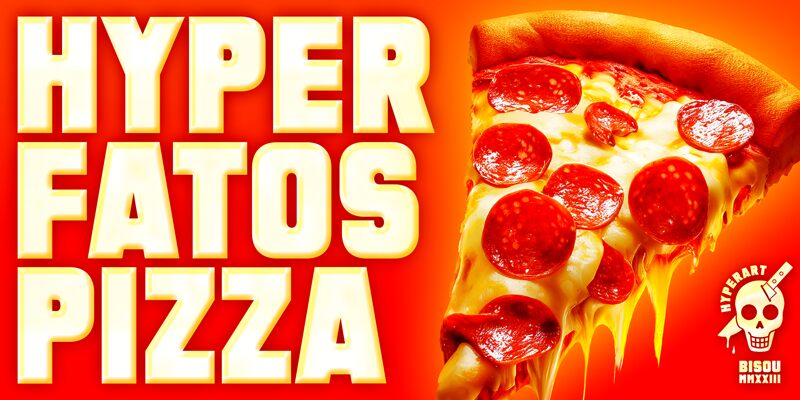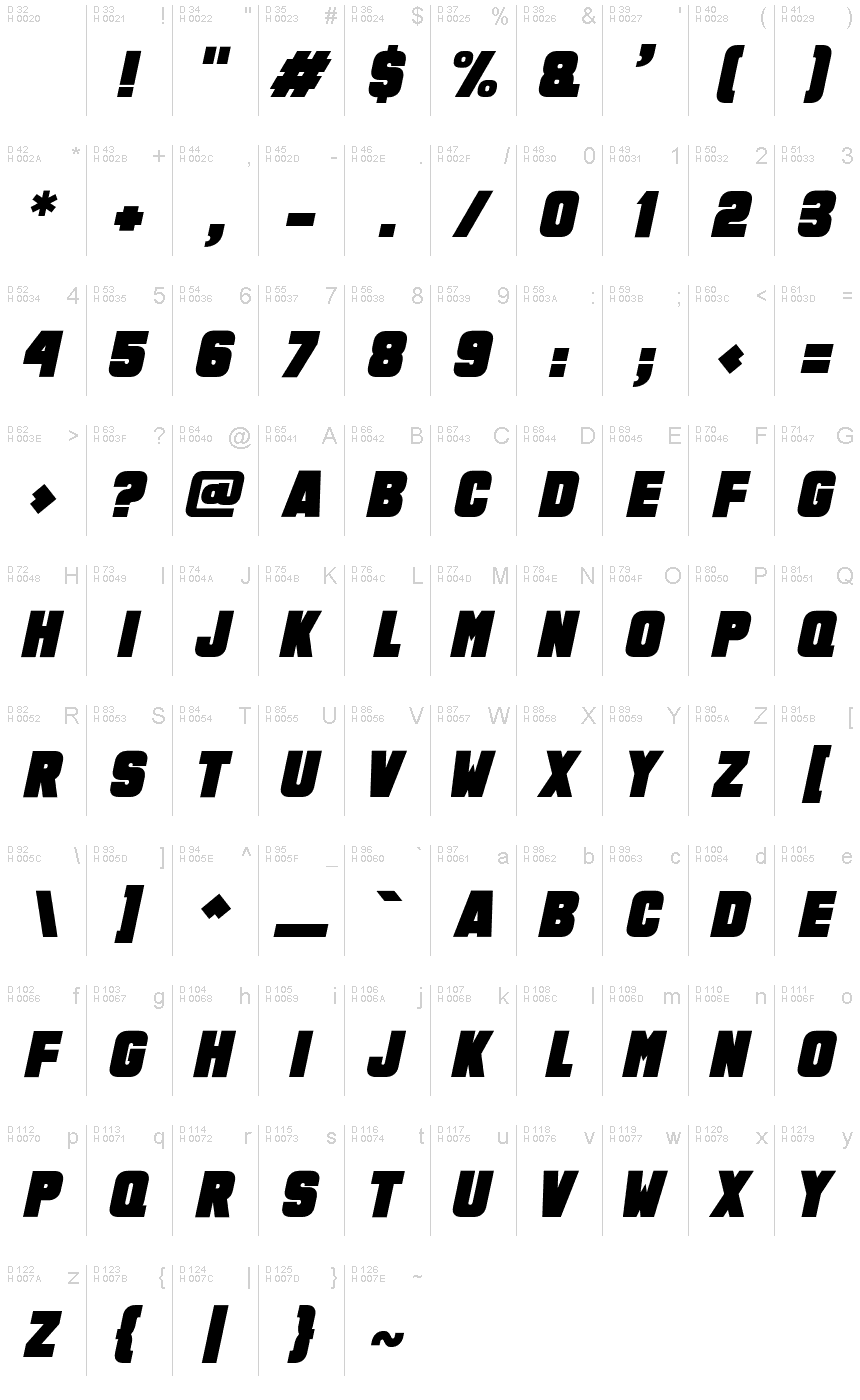
HyperFatosItalic
Hyper Fatos Italic, a distinctive member of the Hyper Fatos font family, is a typographic marvel crafted by the talented Bisou. This sans serif font exudes confidence with its extra-bold weight, ensuring that any text stands out with unmissable clarity. Its semi-condensed width offers a contemporary edge, making it an impeccable choice for designers seeking to convey strength and modernity in their projects.
The italic style of Hyper Fatos adds a dynamic flair to the already striking character of the font, suggesting movement and sophistication. With its robust form and assertive posture, this typeface is exceptionally suited for impactful headlines, bold advertising campaigns, and any creative endeavor where making a strong visual statement is paramount.
Hyper Fatos Italic's aesthetic appeal lies in its balance between forceful presence and refined elegance—a combination that can elevate brand identities and capture audiences across various mediums. Whether for print or digital use, this font is versatile enough to adapt yet powerful enough to leave a lasting impression.